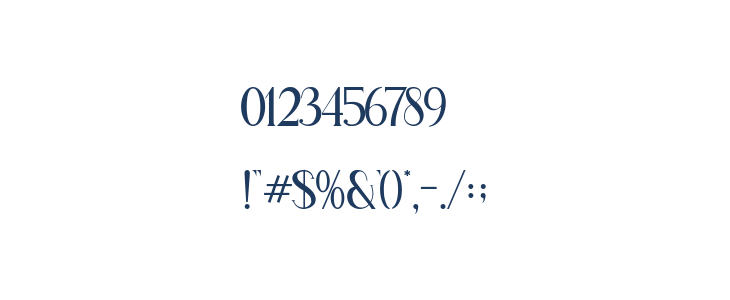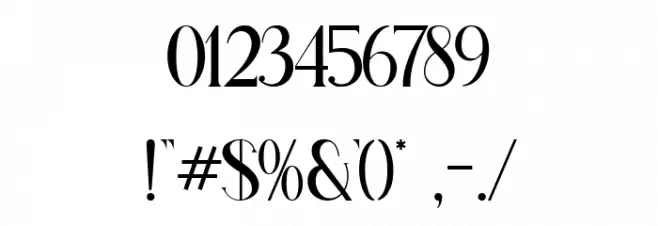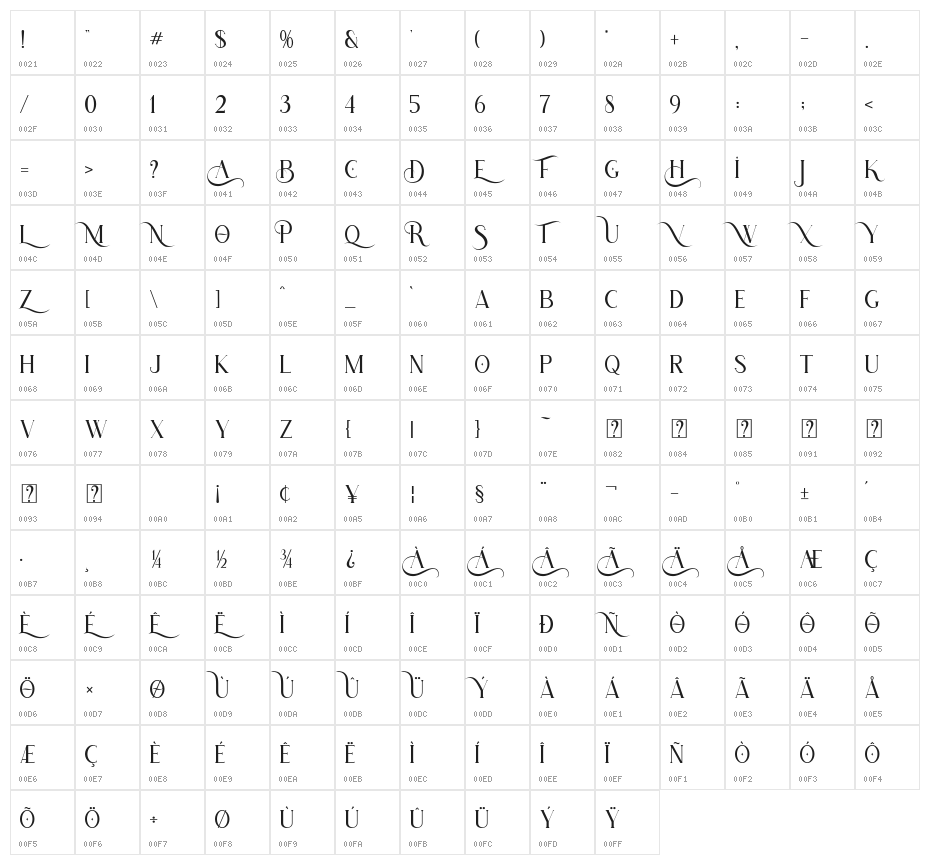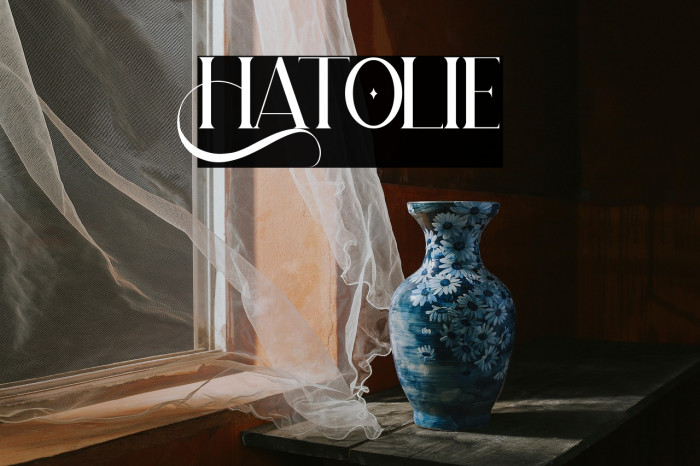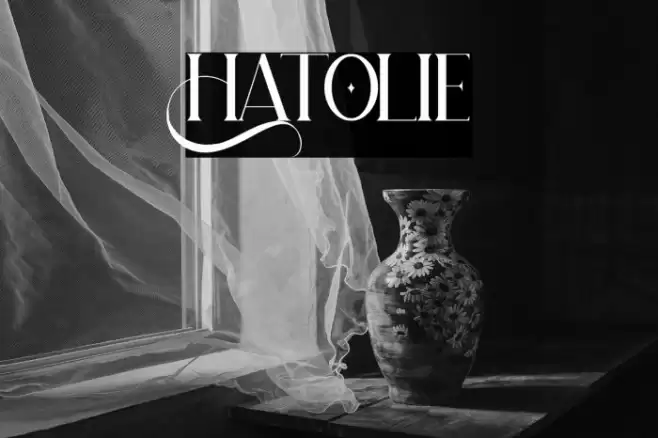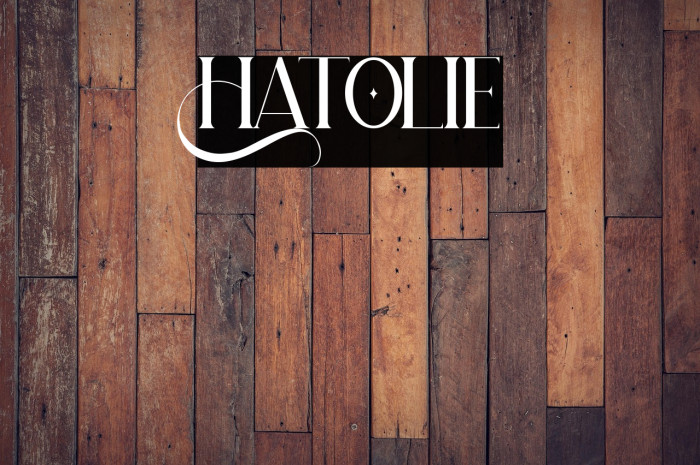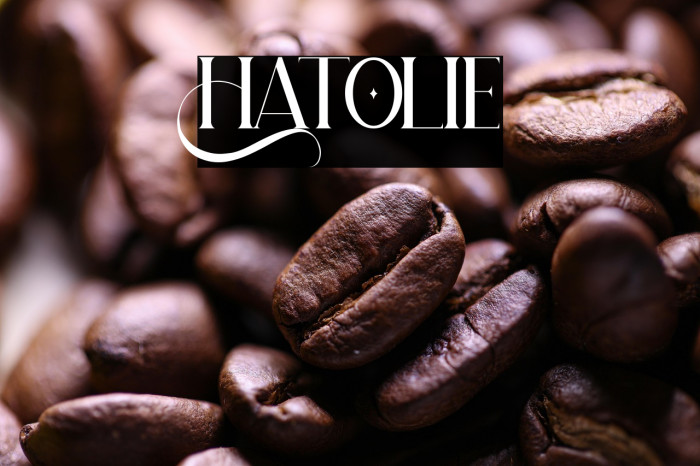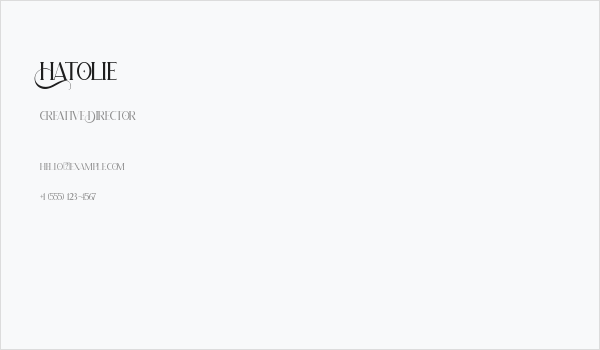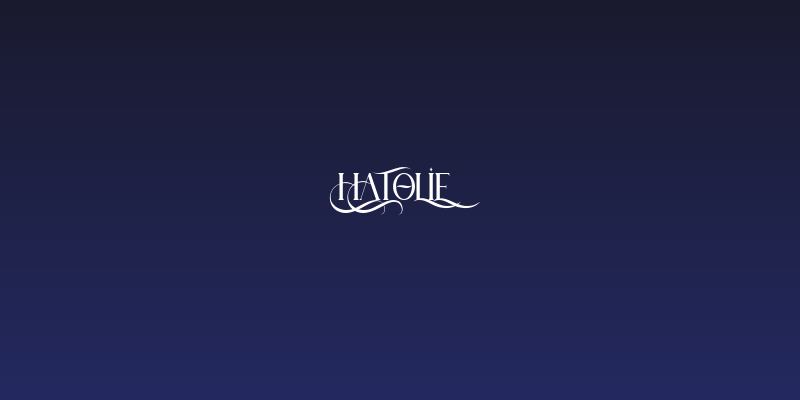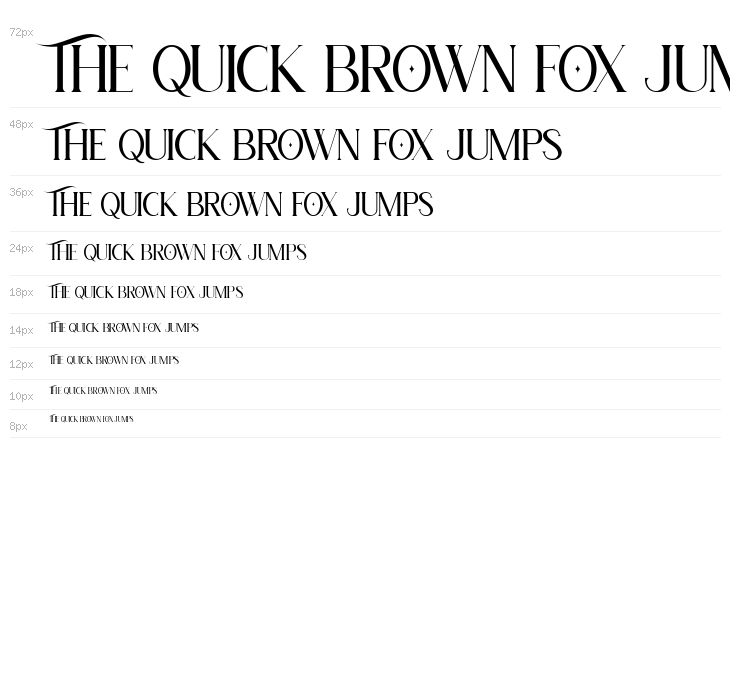
Hatolie Font
Hatolie Description
This font features a striking blend of elegance and boldness, characterized by its decorative and flowing uppercase letters with intricate swashes and flourishes. The lowercase letters maintain a more traditional serif style, offering a balance between ornate and readable. The numerals are distinct and maintain the decorative theme, while the special characters are designed to complement the overall aesthetic. The font's high contrast in stroke thickness adds to its dramatic appearance, making it suitable for eye-catching designs.
| Proposed Projects | Ideal for wedding invitations, luxury branding, editorial headlines, and artistic posters. |